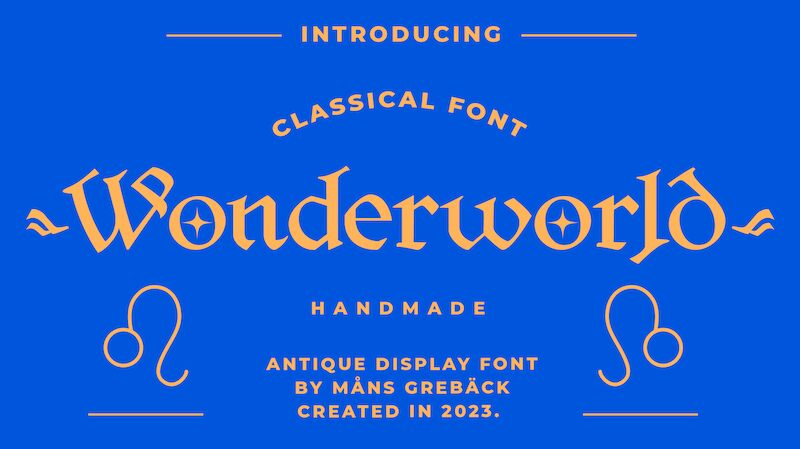
Welcome to the captivating world of Wonderworld, the semi-light gothic font designed by Mans Greback. Embodying a perfect balance of modernity and vintage style, this font is ideal for projects that require an edgy and bold touch. From book covers to invitations, posters to logos, Wonderworld's unique and intricate letterforms will make any project stand out in a sea of monotony. Its semi-light weight adds a touch of delicacy while still retaining its gothic roots, making it suitable for designs that require both strength and elegance. Let Wonderworld bring your creative vision to life with its unparalleled character and charm.
Use [] or {} to make decorations.
Example: [Lovely]